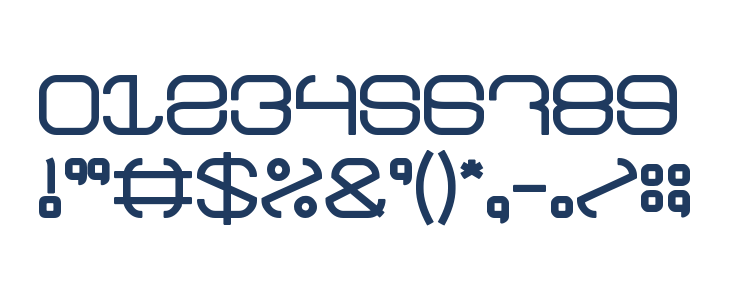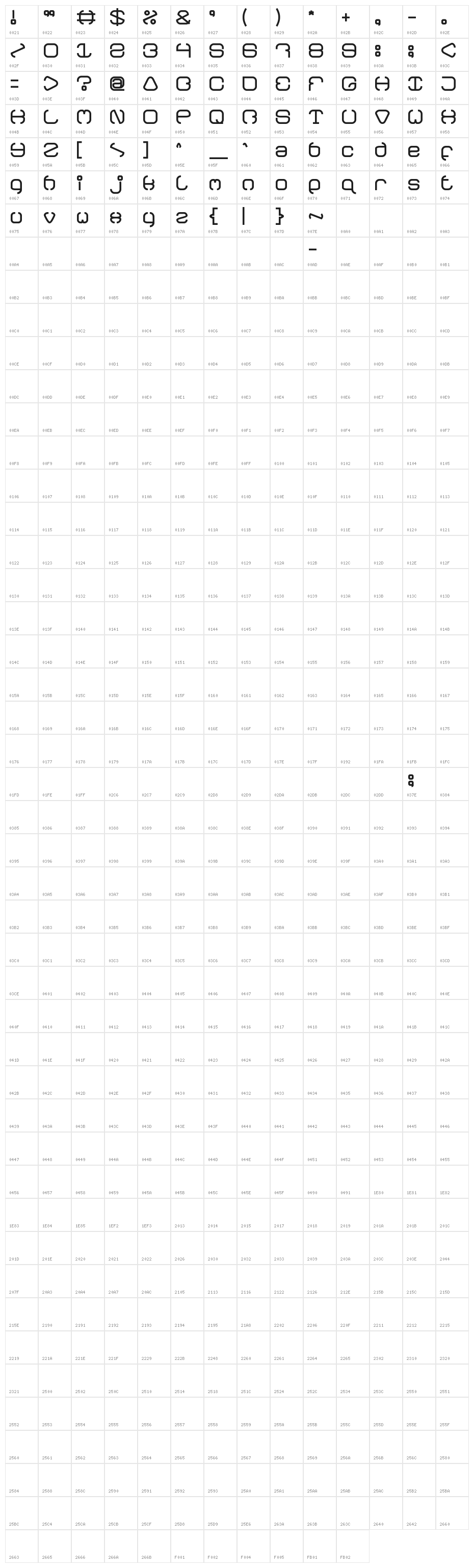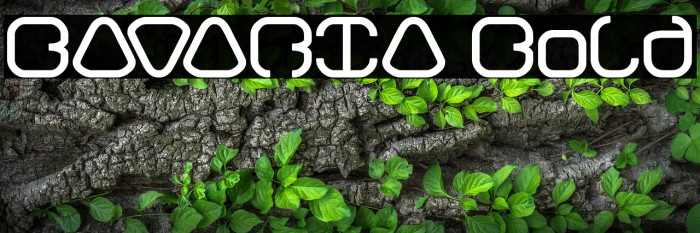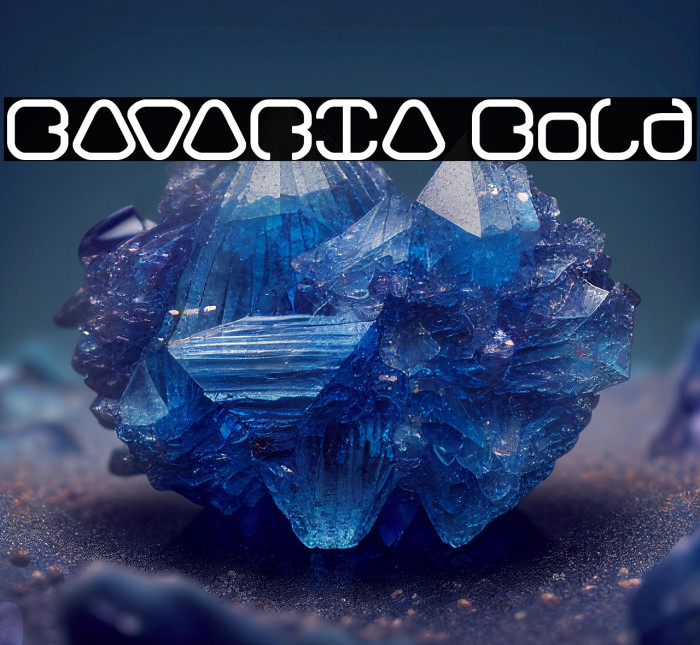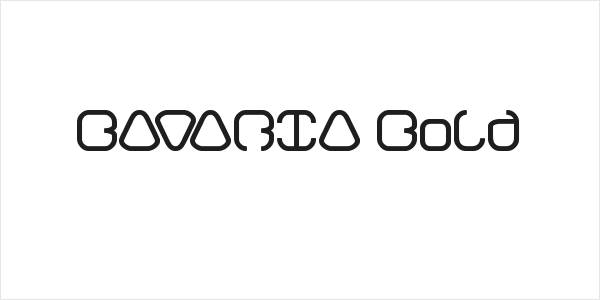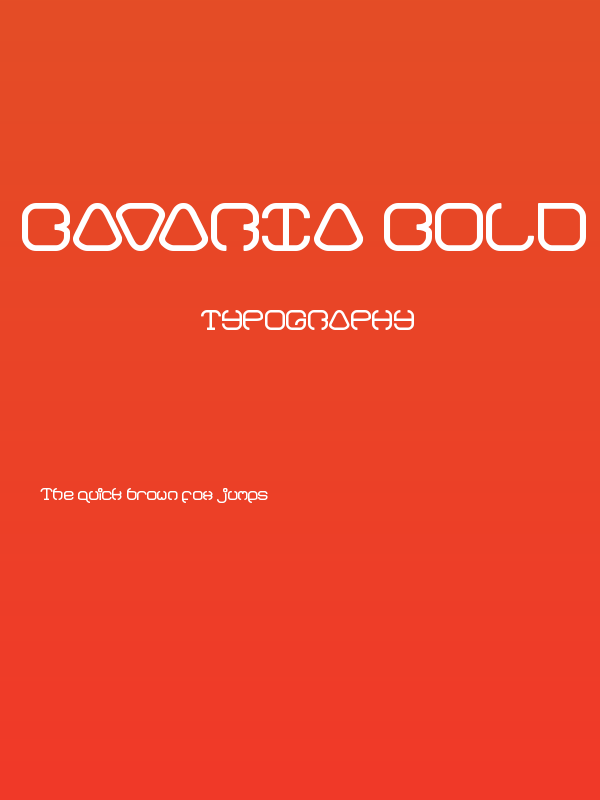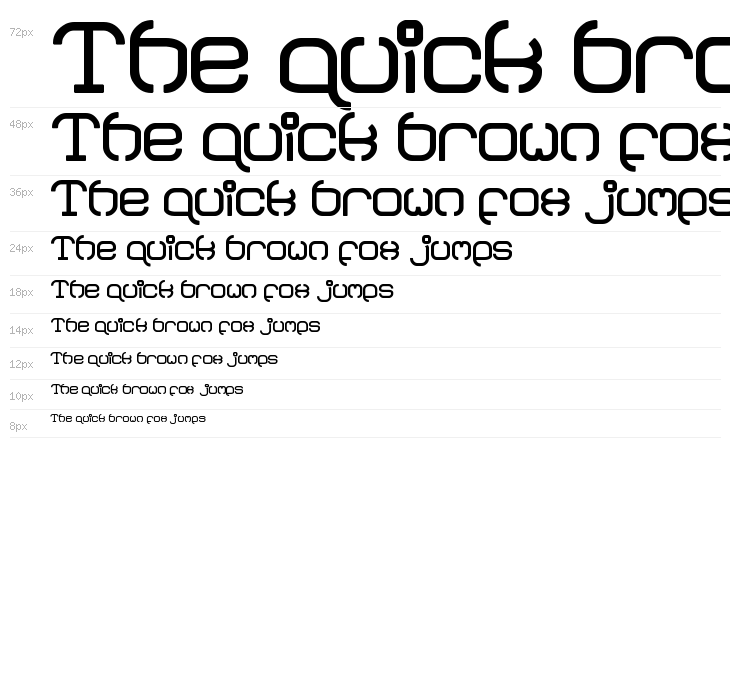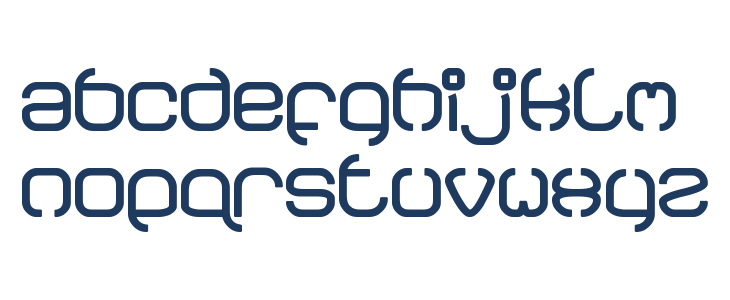
BAVARIA Bold Font
BAVARIA Bold Description
This font features a bold and geometric design with rounded edges and a futuristic aesthetic. The characters are constructed with consistent stroke thickness, creating a uniform appearance. The uppercase and lowercase letters maintain a cohesive style, with unique shapes that give the font a distinct personality. The numbers and special characters follow the same design principles, ensuring a harmonious look across all glyphs. The font's modern and sleek design makes it suitable for various creative applications, offering a contemporary feel that stands out.
| Use Case | Logos, Headlines, Posters |
| Proposed Projects | Ideal for technology branding, futuristic posters, modern logos, and digital interfaces. |